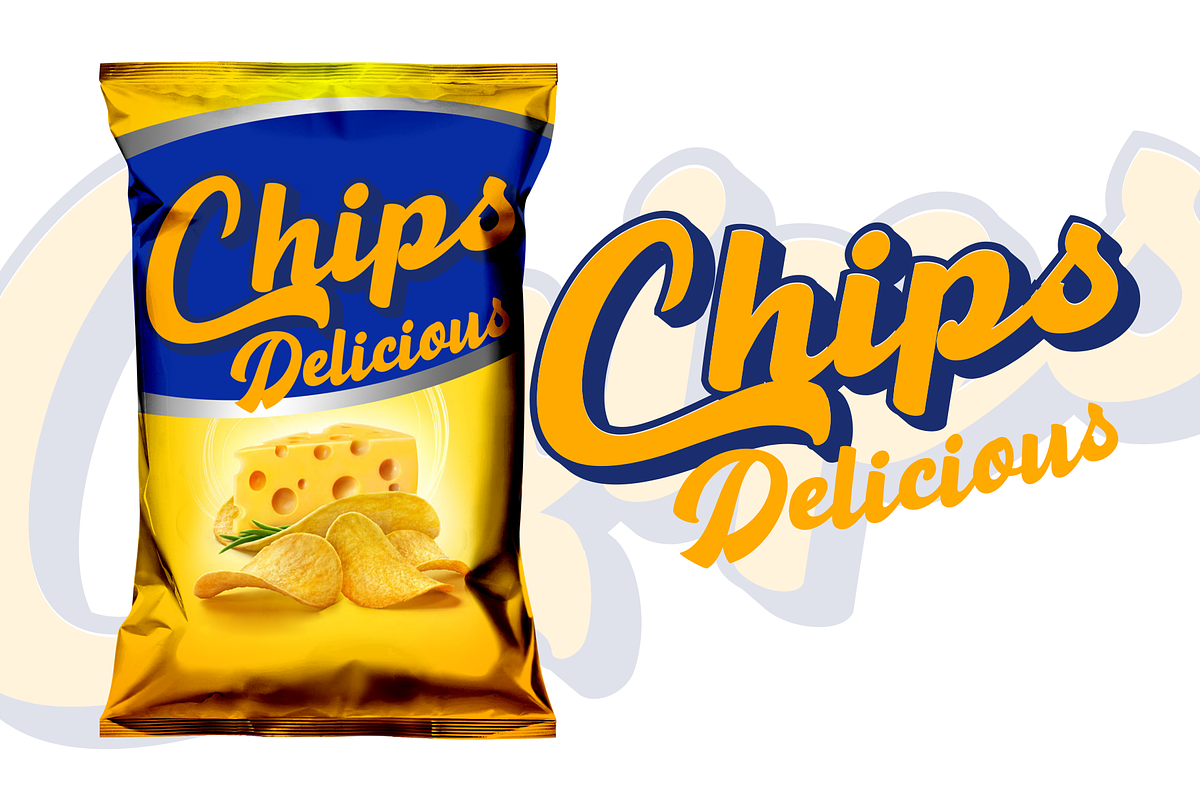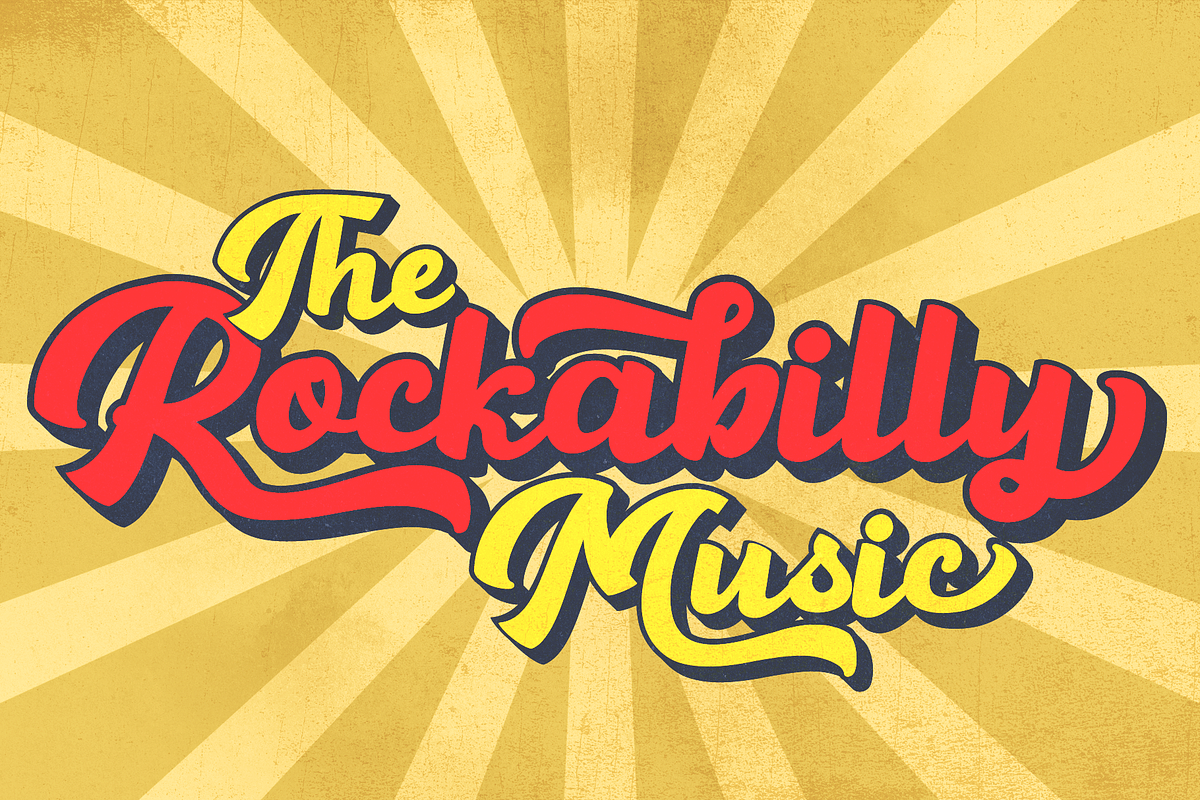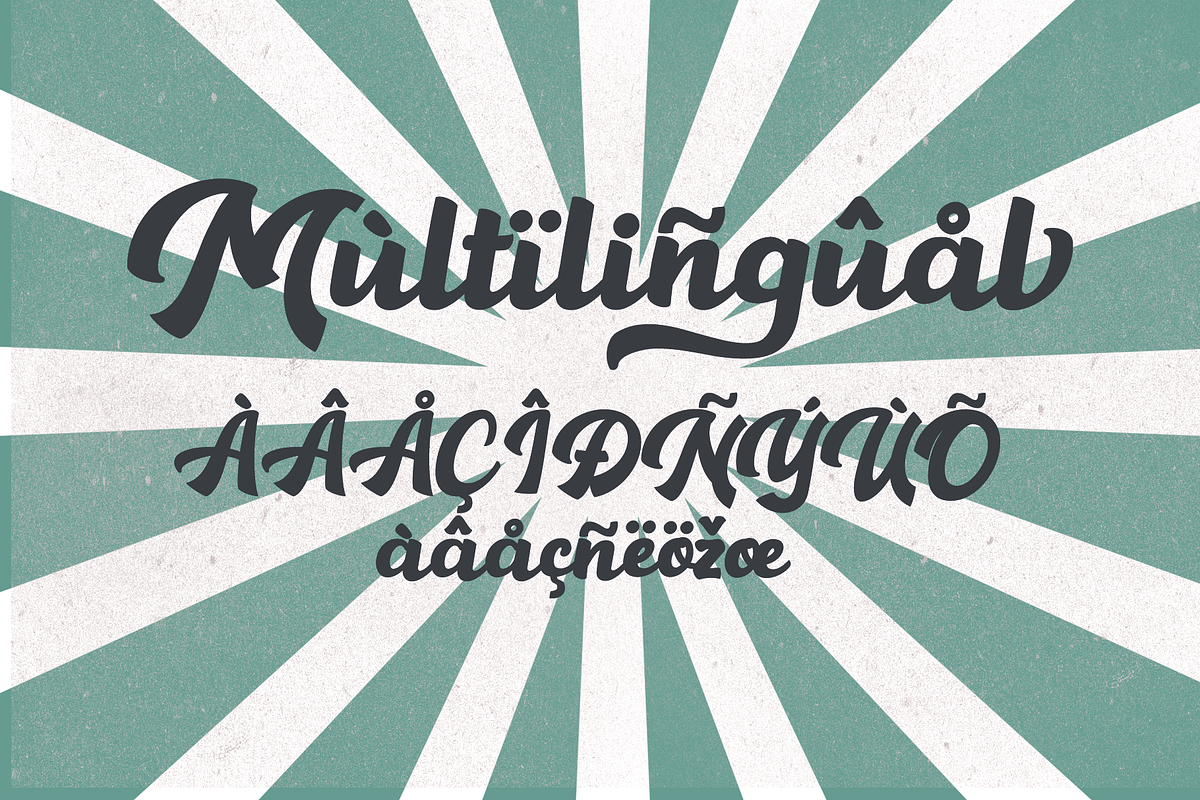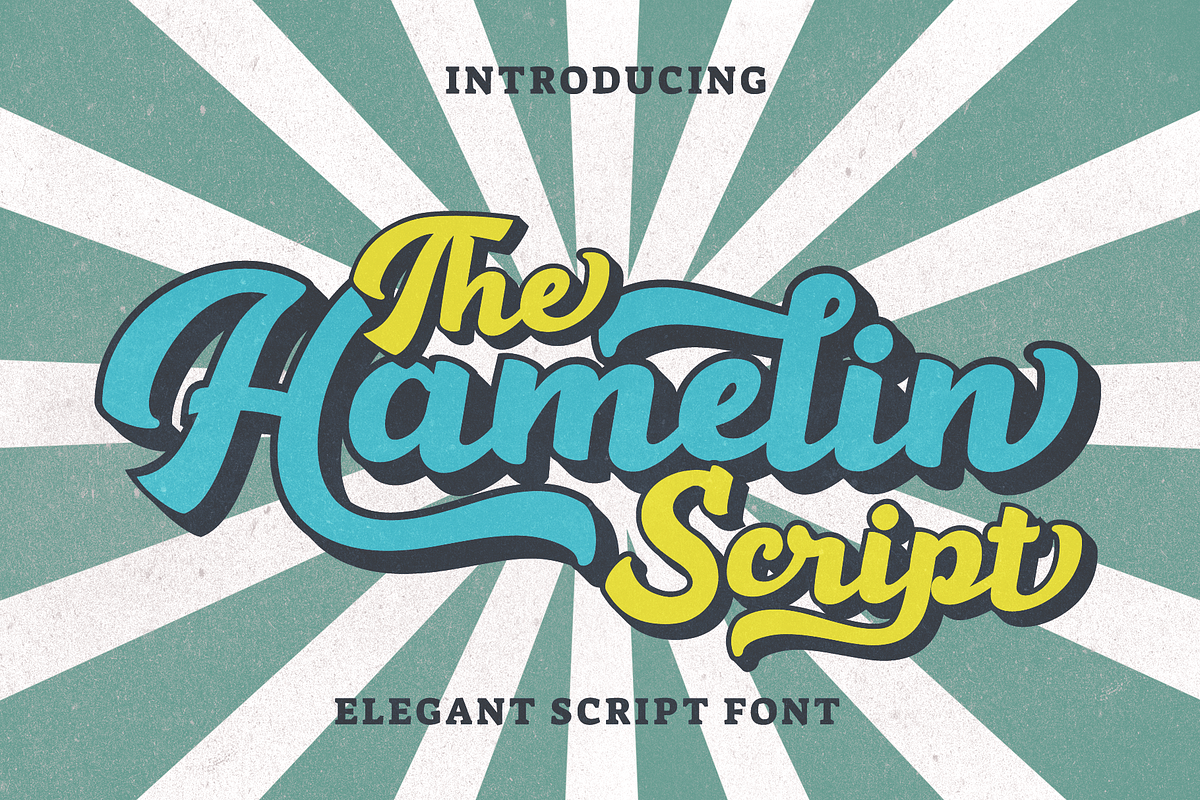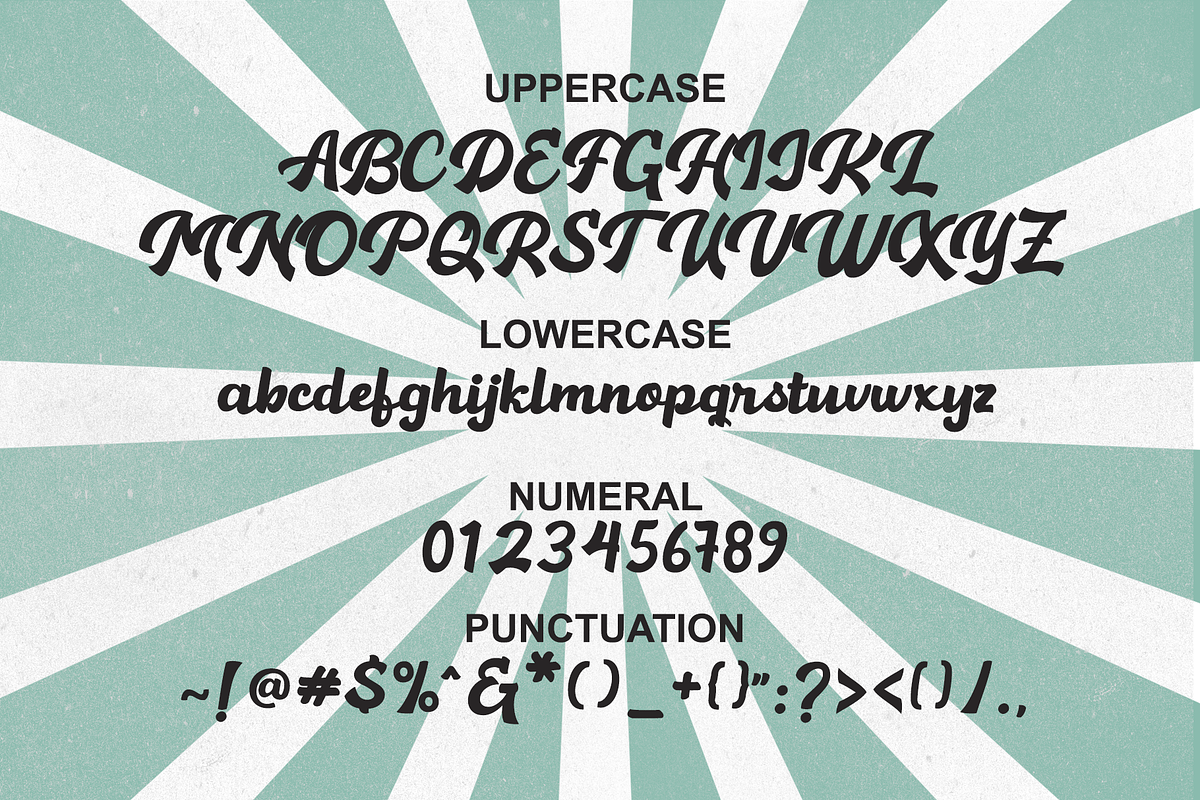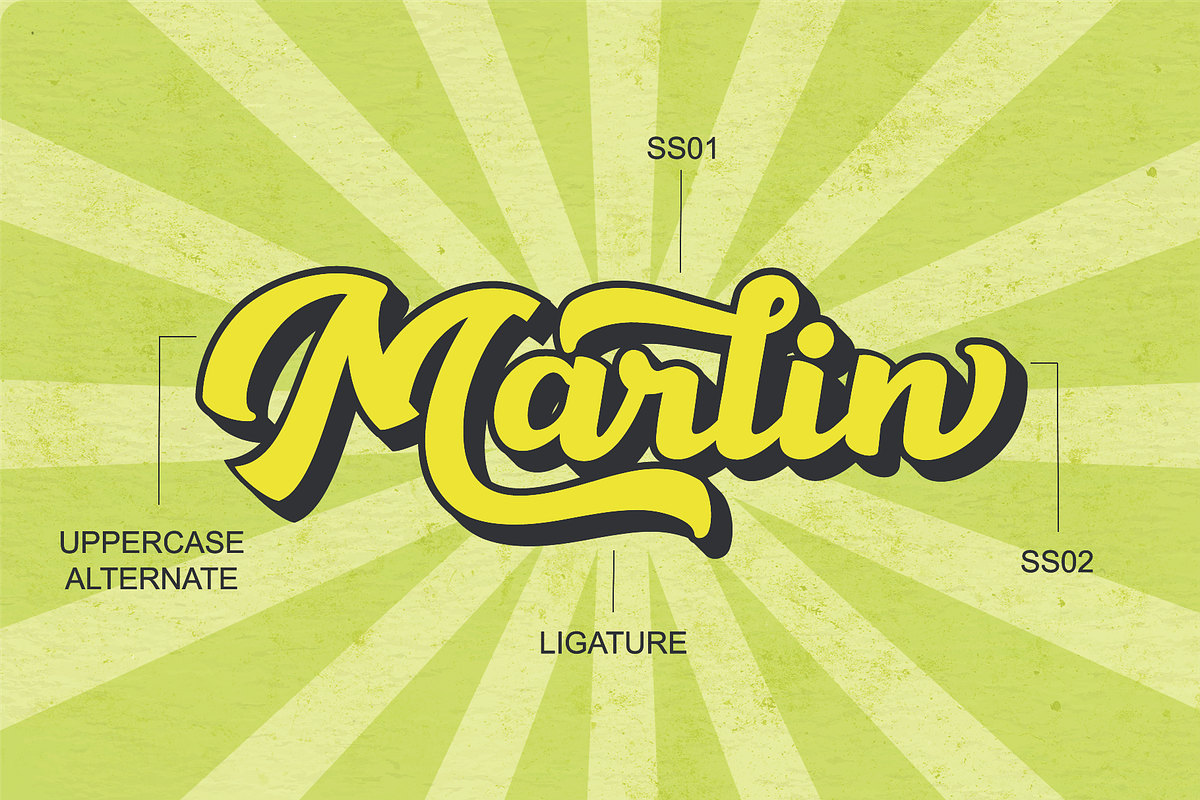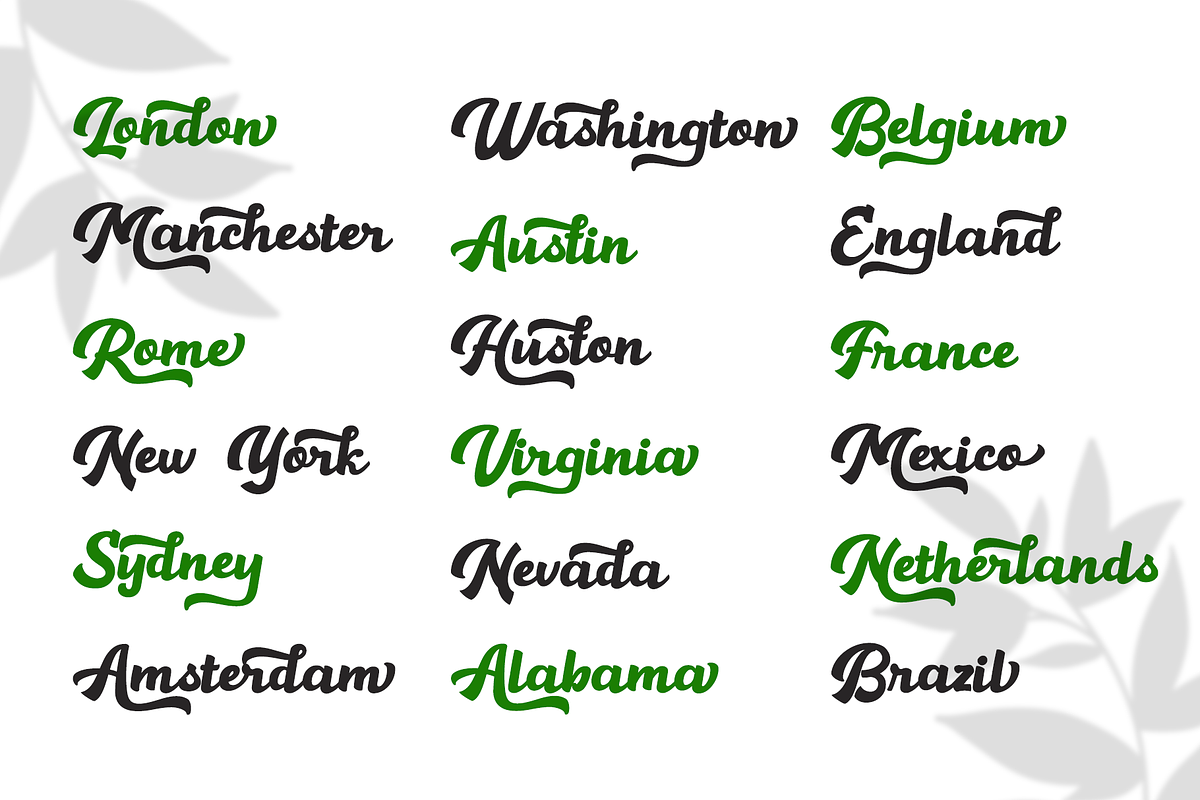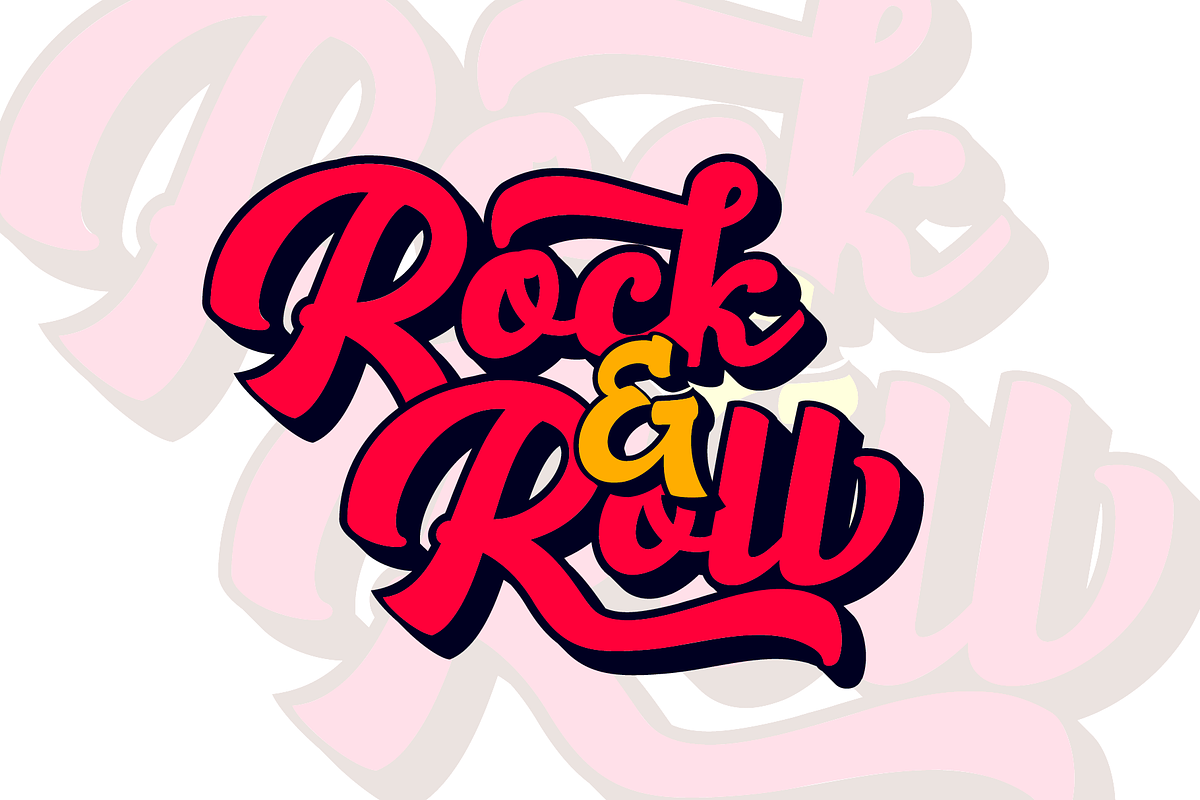
Hamelin // Retro Font
Hamelin Script Inspired by Retro style and combination with Hand Lettering style. Every single letters have been carefully crafted to make your text looks beautiful. I hope this can make inspire you from your work. Font is PUA encoded so you can access extras from character map in most design software.